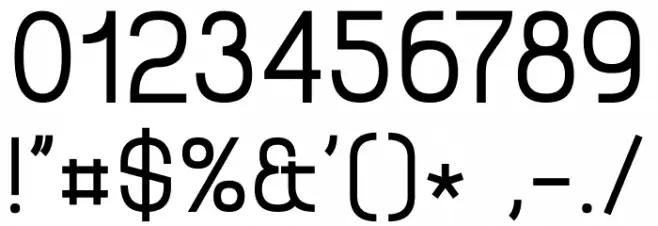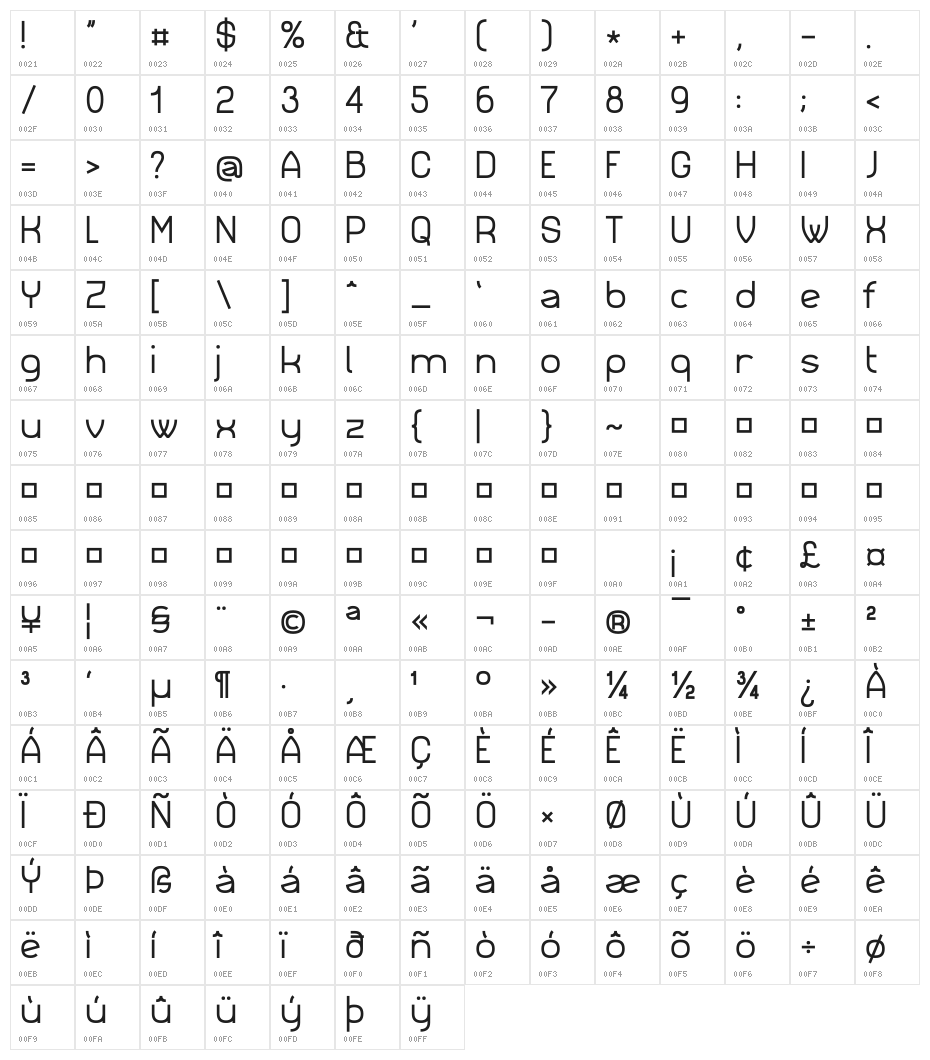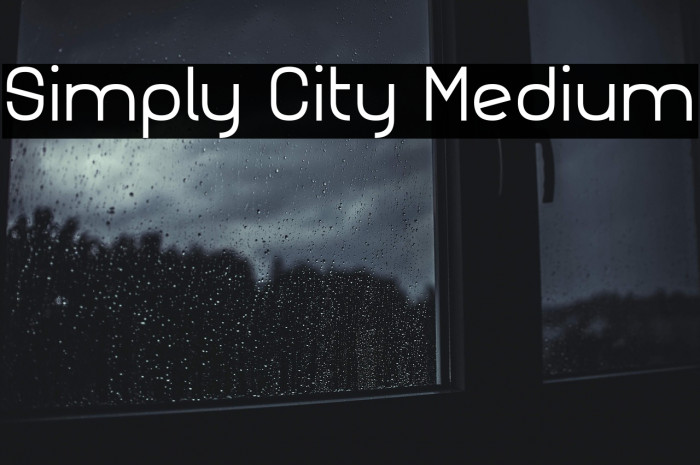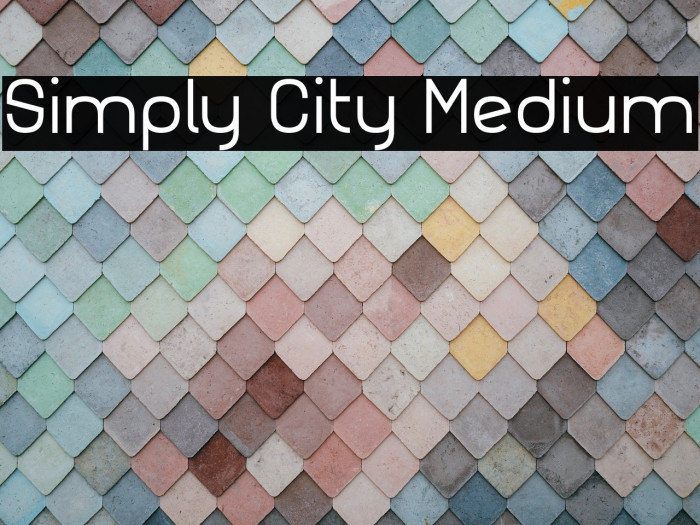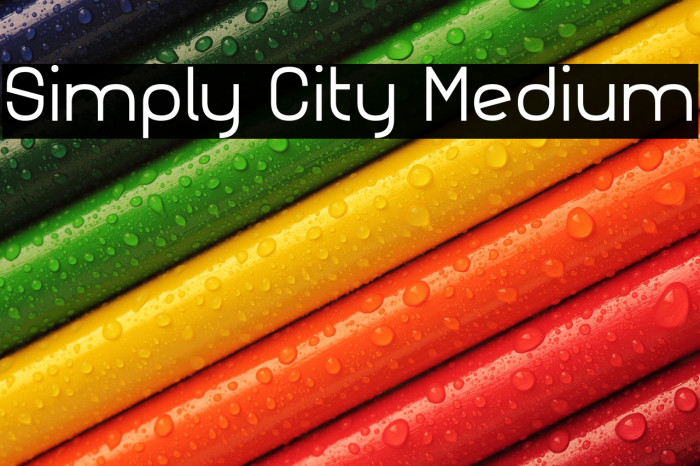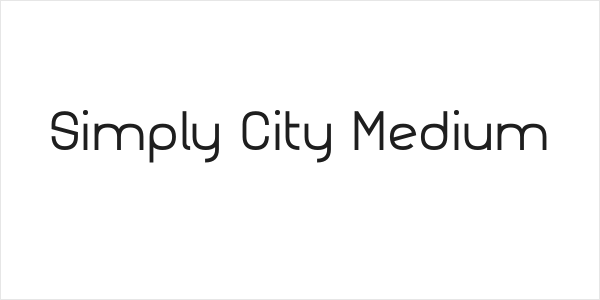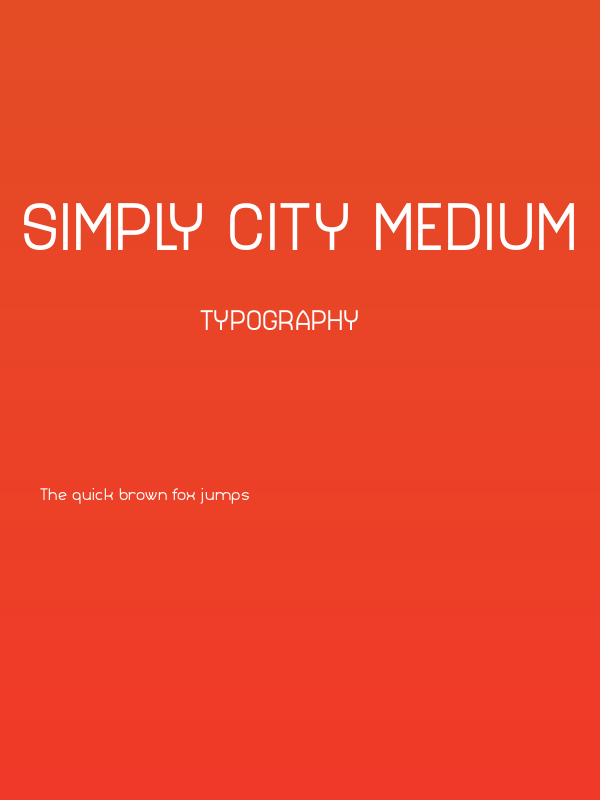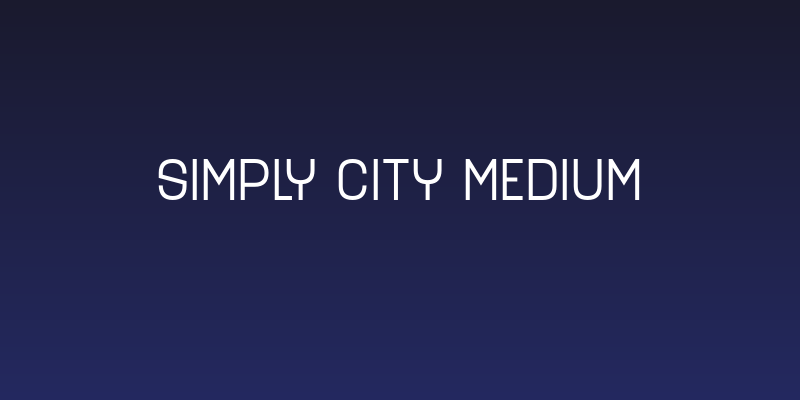
Simply City Medium Font
Simply City Medium Description
This font features a clean and modern design with a geometric structure. The characters are well-balanced with a consistent stroke width, giving it a uniform appearance. The uppercase letters are slightly taller than the lowercase, maintaining a clear distinction between the two. The rounded edges of the characters add a touch of softness, while the overall design remains sleek and contemporary. The numerals are clear and easy to read, matching the style of the alphabetic characters. Special characters are included, maintaining the same geometric and modern aesthetic.